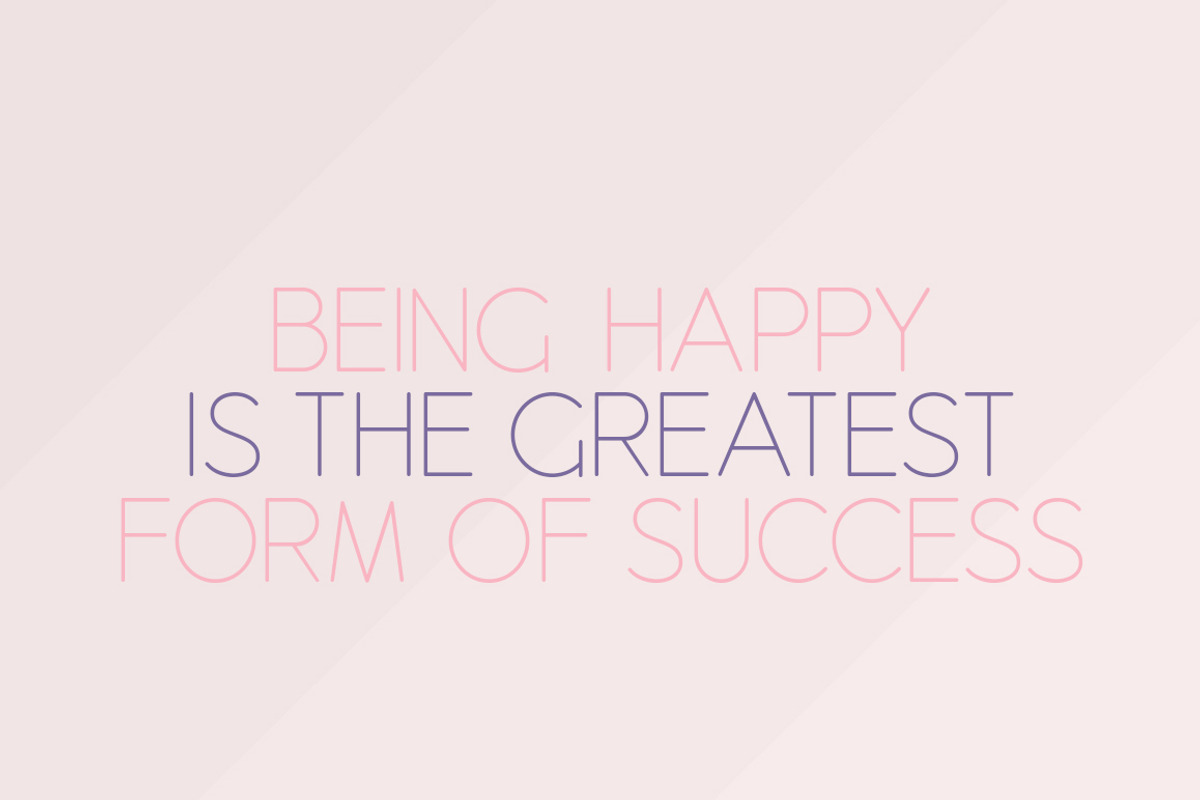
Dingle Dangle Font Duo
Check out our new fandangled, Dingle Dangle font duo! Not only do you get the chunky and fun Dingle included but you get the thinner and classy Dangle too! A perfect duo that pair well together and with others. Enjoy!